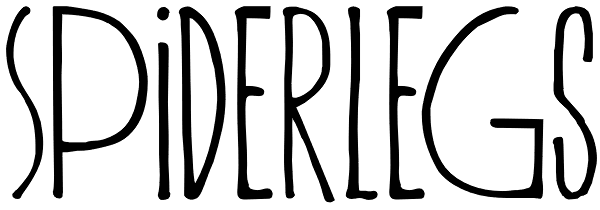
Spiderlegs
Spiderlegs is a tall, handwritten typeface. It comes with Babylonian language support, contextual alternates and some pretty unique styles.